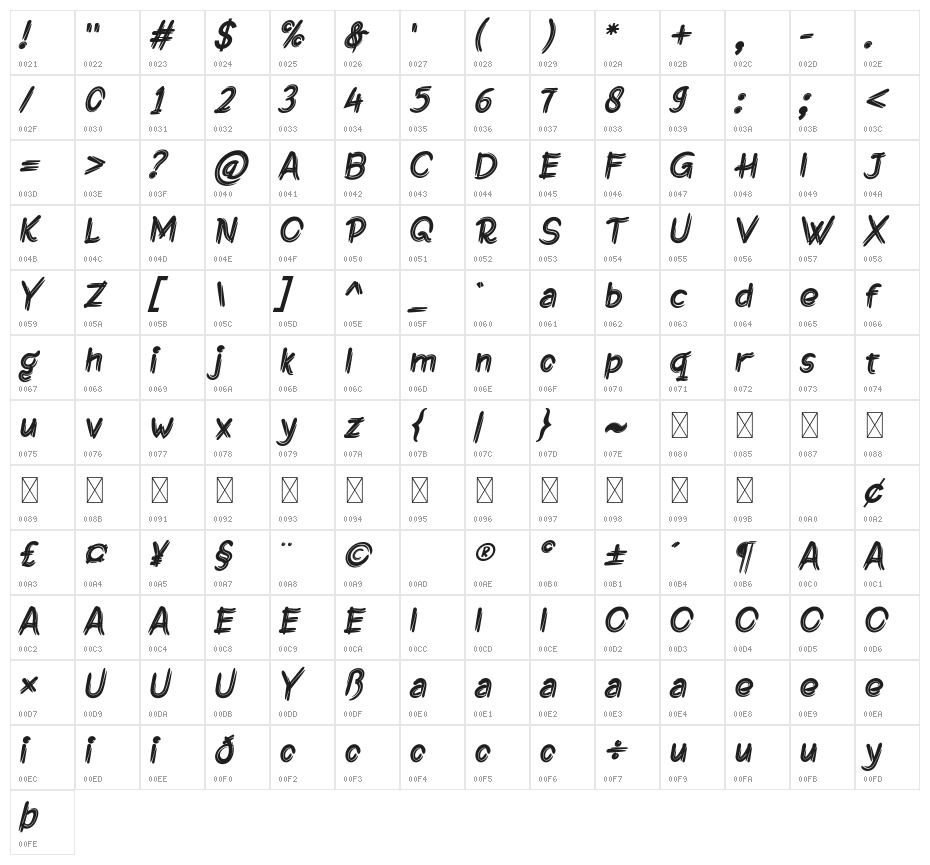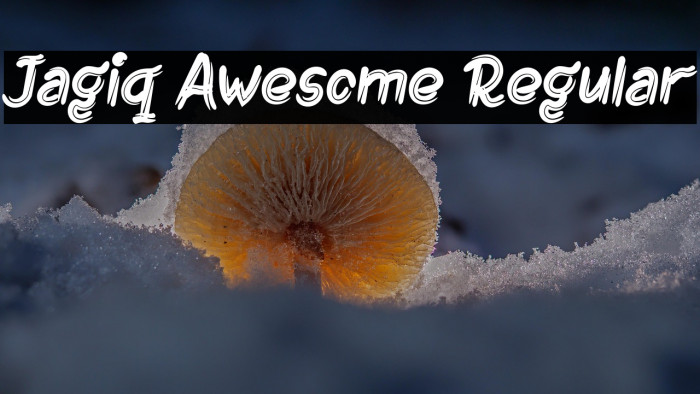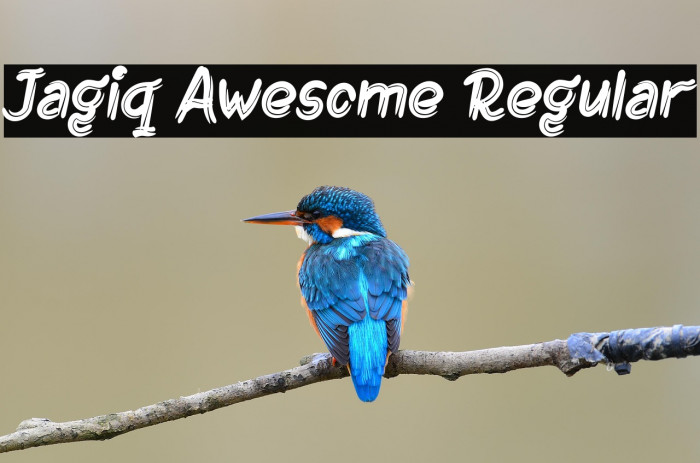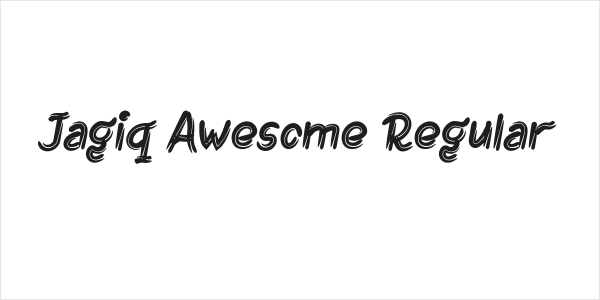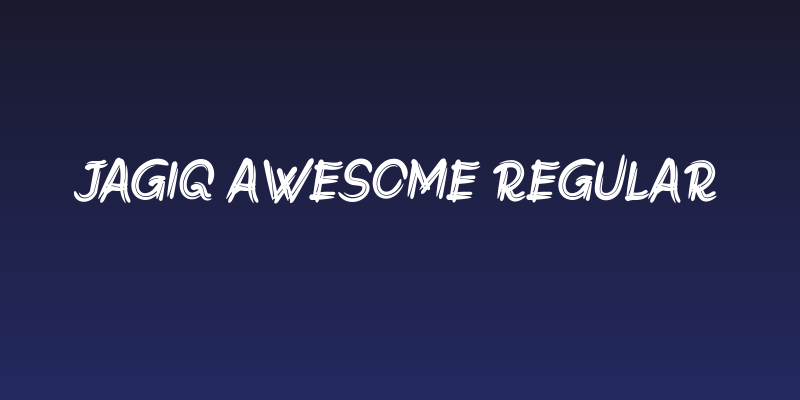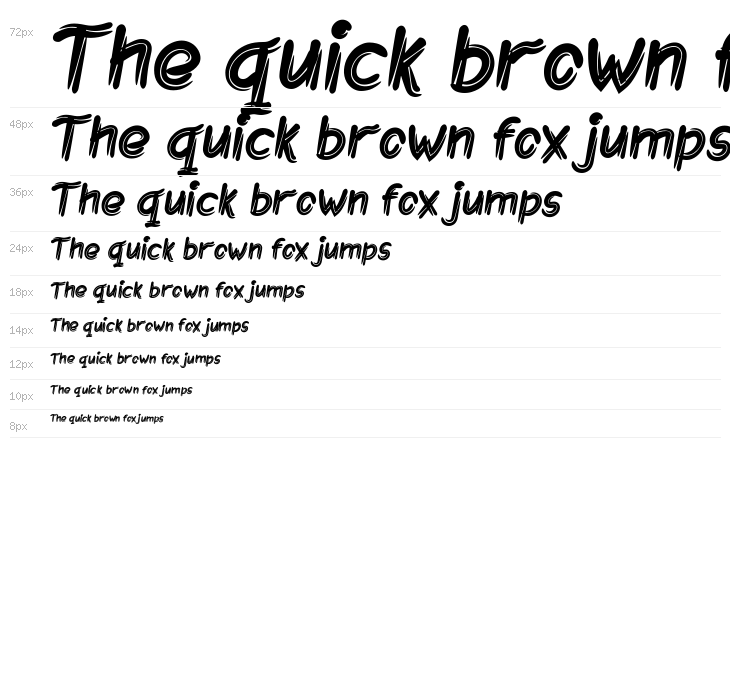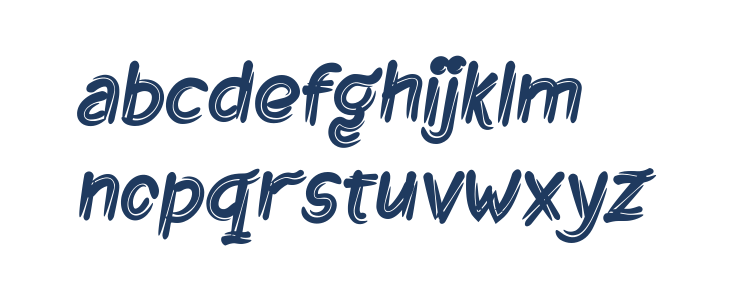
Jagiq Awesome Regular Font
Jagiq Awesome Regular Description
This font features a dynamic and energetic style with a handwritten appearance. The strokes are bold and slightly irregular, giving it a lively and informal feel. The characters are slightly slanted, adding a sense of motion and fluidity. The uppercase and lowercase letters maintain a consistent style, with rounded edges and a playful touch. The numbers and special characters match the overall aesthetic, making it versatile for various uses. The font's boldness and unique character shapes make it stand out, ideal for creative and expressive projects.
| Proposed Projects | Ideal for posters, greeting cards, social media graphics, and branding projects that require a lively and informal touch. |